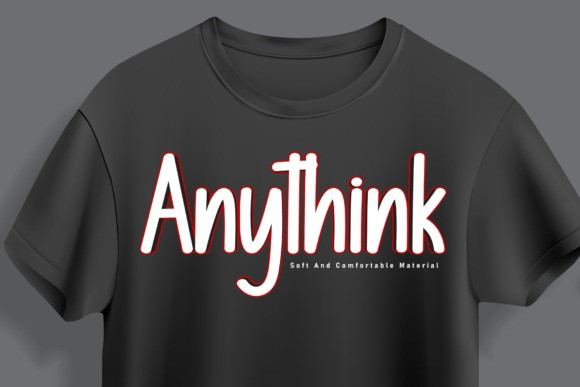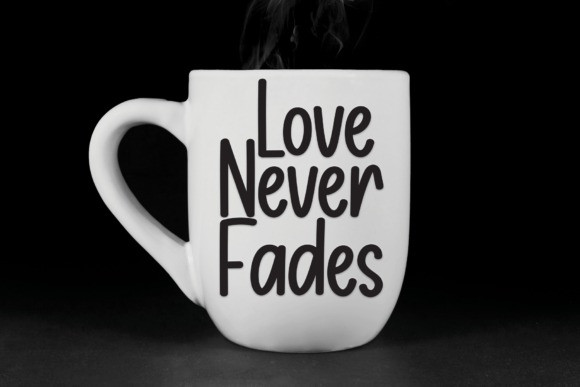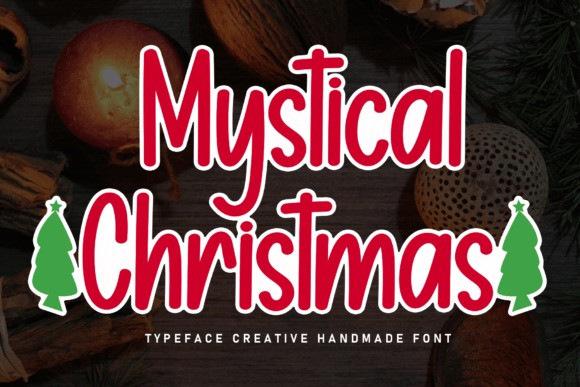
Mystical Christmas Font
Mystical Christmas Font is a sweet and friendly handwritten font. Its natural and unique style makes it incredibly fitting to a large pool of designs. The only limit is your imagination!